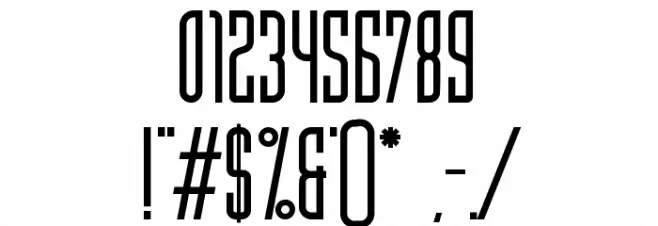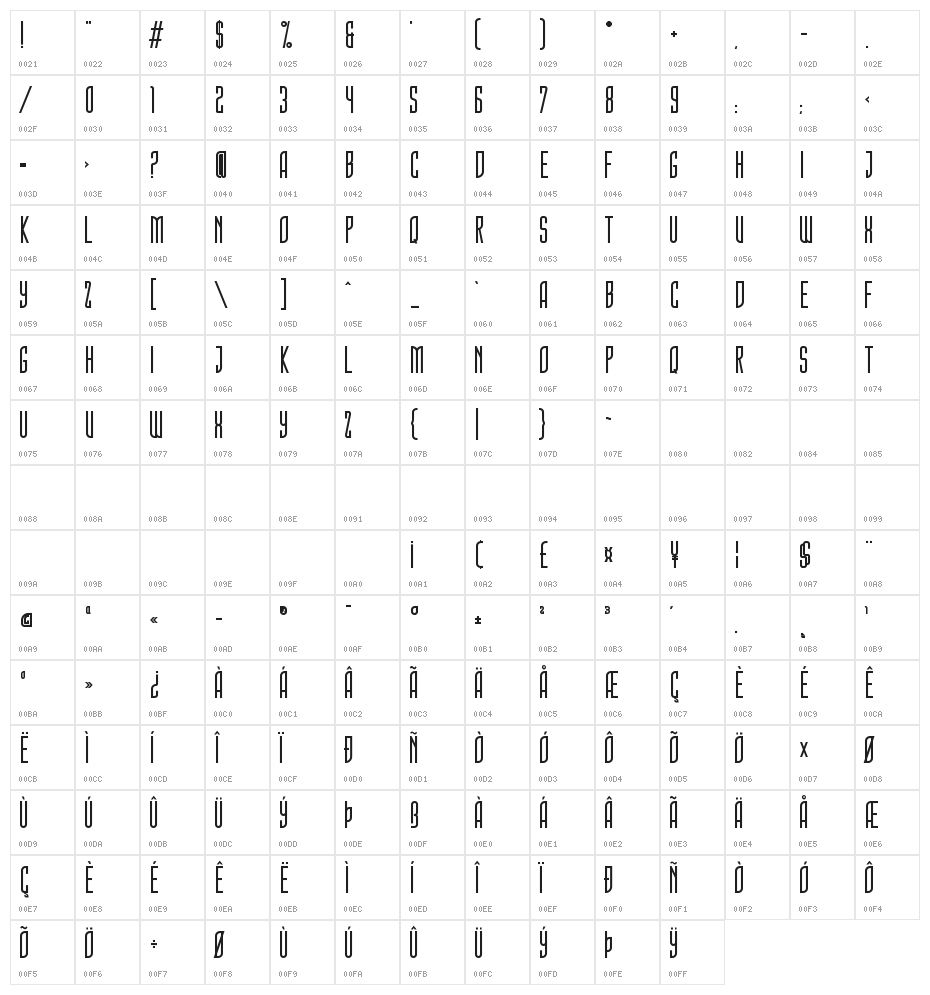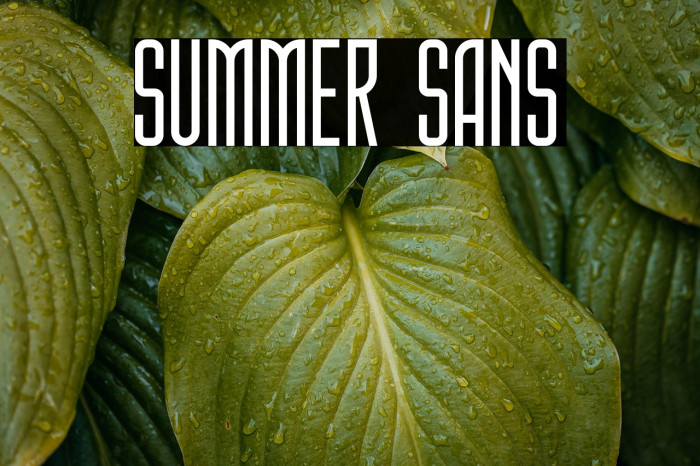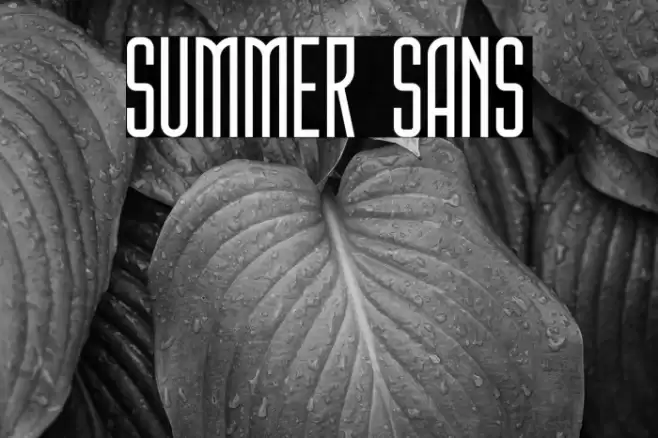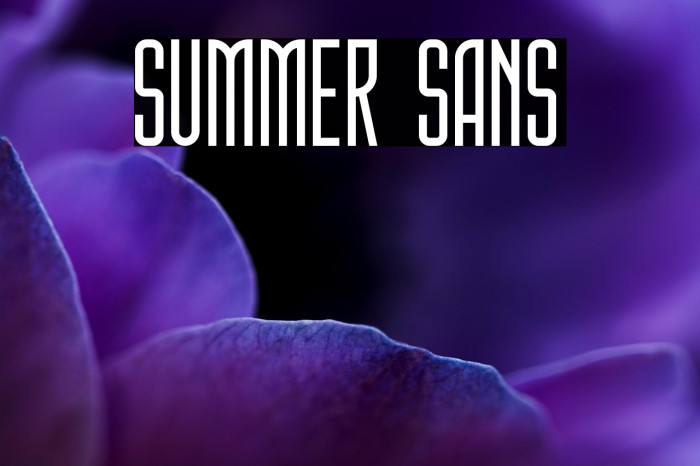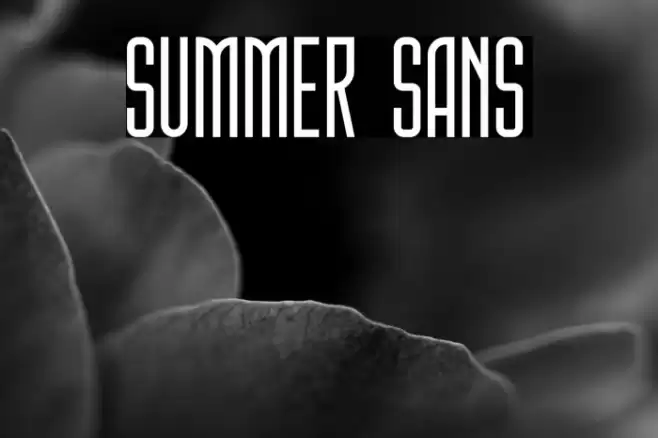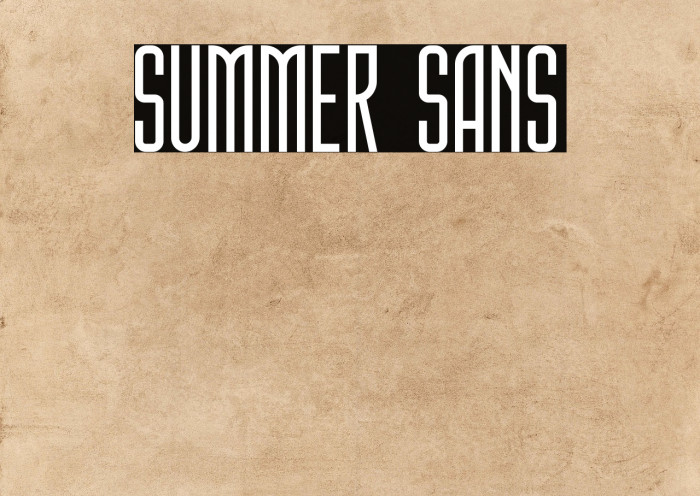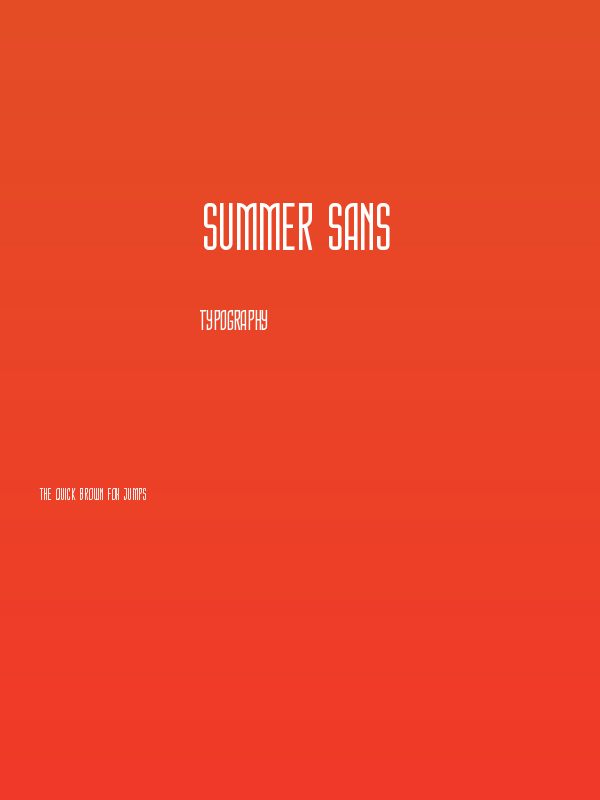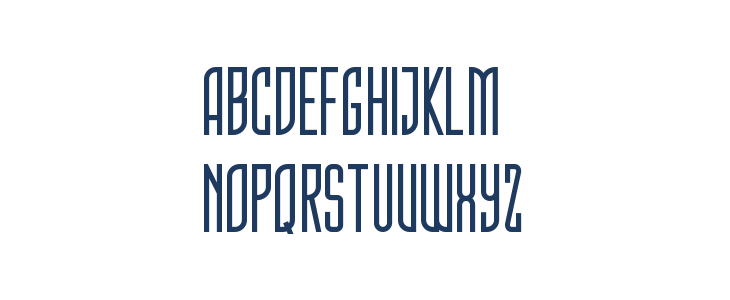
Summer Sans Font
Summer Sans Description
This font features a tall, narrow design with a modern and sleek appearance. The characters are elongated and have a consistent stroke width, giving it a clean and structured look. The uppercase and lowercase letters maintain a uniform height, contributing to its orderly aesthetic. The numerals and special characters follow the same design principles, ensuring a cohesive appearance across all glyphs. The overall style is minimalistic yet impactful, making it suitable for various design applications.
| Proposed Projects | Ideal for branding, posters, headlines, and any project requiring a modern and clean typeface. |